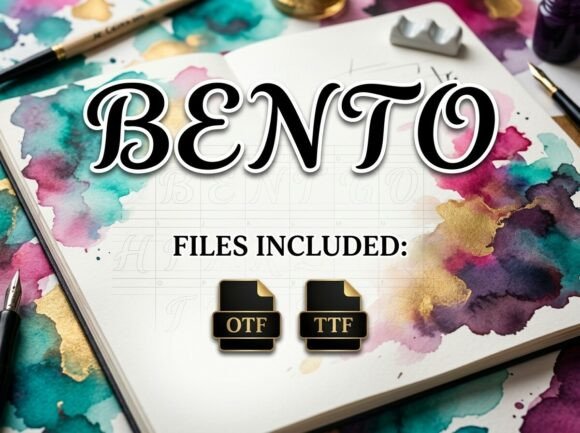
The Bento Font: A Game-Changer for Designers and Creators
Have you ever been working on a project, pouring your heart and soul into every detail, only to get stuck on one thing: the font? I certainly have. It was a few years ago when I was tasked with creating a luxury packaging design for a high-end client. The brief was simple: make it bold, make it eye-catching, and make it unforgettable. But as I scrolled through font after font, nothing seemed quite right. That was until I stumbled upon the Bento Font.
First Impressions: A Standout Font
The Bento Font is an avant-garde decorative display font that’s engineered to be the focal point of any composition. Its commanding visual personality and unique artistic flourishes make it a standout in any design. I was immediately drawn to its high-end, polished finish, which seemed perfect for luxury packaging and editorial layouts alike.
What Makes Bento Font Special?
So, what sets the Bento Font apart from other fonts out there? Here are a few things that I love:
• ✨ Unique Artistic Flourishes: Each letter is crafted with intricate details, making it a true showstopper.
• ✅ High-End Finish: The font has a sophisticated, polished look that’s perfect for luxury brands.
• ✅ All-Caps Design: By focusing on uppercase characters, the designer has ensured that every letter is a work of art in its own right.
Honest Review: The Good and the Quirks
While the Bento Font is a stunning addition to any design, it’s not without its quirks. Here are a few things to keep in mind:
• 🤔 All-Caps Limitation: As mentioned earlier, the Bento Font is an all-caps display typeface. This might be a limitation for some designers who prefer a more versatile font.
• ⚠️ Glyph Overload: With so many intricate details, the font can be overwhelming if not used carefully. Be mindful of legibility and balance.
The Designer Inspiration Behind Bento Font
While the true story behind the Bento Font’s creation remains a mystery, it’s clear that the designer was inspired by a passion for art and luxury. Imagine a world where typography is not just about communication, but about creating an experience. The Bento Font embodies this vision, pushing the boundaries of what’s possible with display fonts.
Is the Bento Font suitable for body text? No, the Bento Font is designed for display purposes only and may not be suitable for body text due to its intricate details and all-caps design.